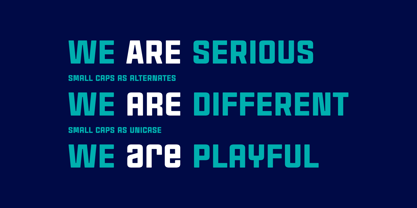
Cintra Font
The Cintra Font is a chic and contemporary sans-serif typeface that is perfect for projects that need a clean, sophisticated, and modern feel. Its minimalist design and balanced proportions make it an excellent choice for a variety of professional and creative applications. Imagine it on the branding for a new tech company, a sleek real estate website, or a cutting-edge fashion blog. It’s also fantastic for creating presentations, app interfaces, and editorial layouts where its clear and uncluttered character can truly shine. The Cintra Font brings a sense of effortless style and modern elegance to any project, ensuring your designs are both readable and on-trend.
What makes this font so exciting is its impeccable balance of simplicity and a distinct personality. While it maintains the clean lines and functionality of a classic sans-serif, each letter is crafted with a subtle touch of flair that makes it feel unique and fresh. This isn't just a font; it's a design tool that conveys a sense of modernity, innovation, and trust. The consistent proportions and excellent legibility of the Cintra Font make it a powerful tool for designers who need a typeface that works hard without compromising on style. It adds a professional and confident touch that will make your designs look polished and sophisticated.
The Cintra Font family is designed with versatility and functionality in mind. It comes in a range of weights, including Thin, Light, Regular, and Bold, allowing you to create a clear visual hierarchy in your designs. This comprehensive family provides the tools you need to use the font effectively for both large headlines and detailed body text, making it a valuable addition to any designer's toolkit. The different weights of the Cintra Font ensure that your message is always clear and professionally presented, no matter the medium.